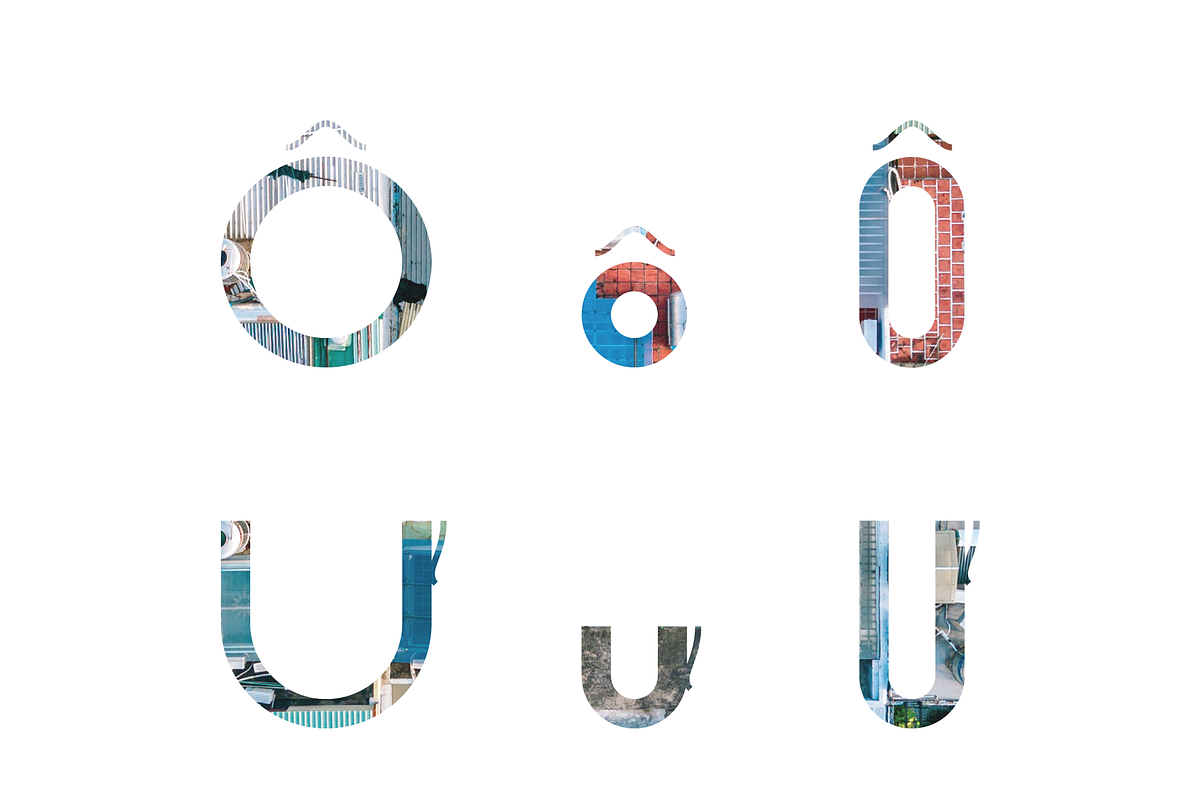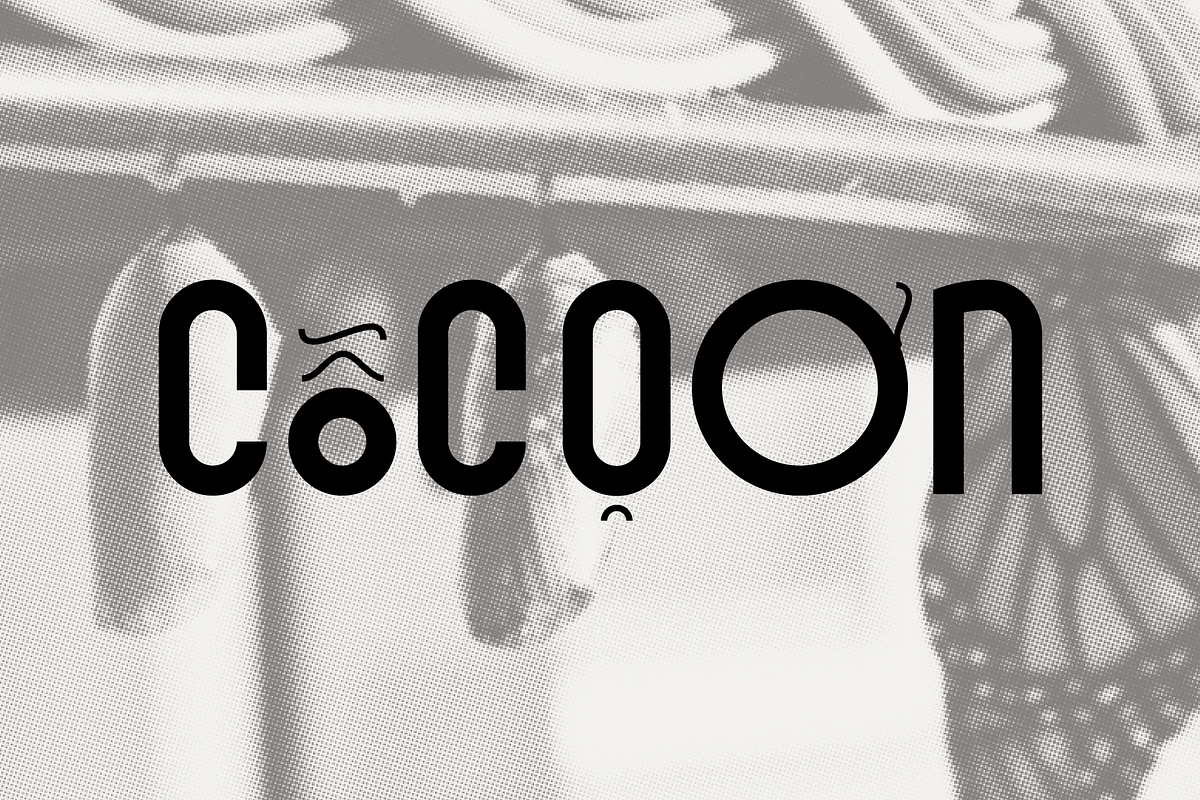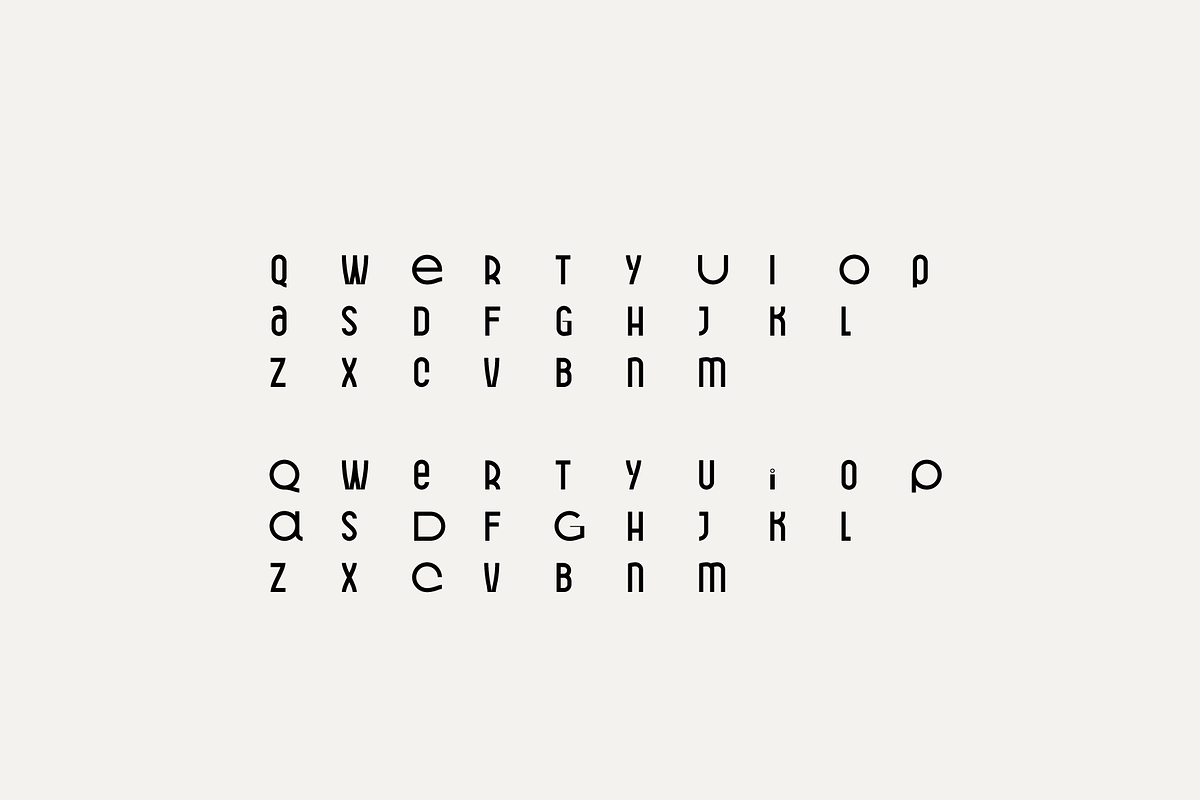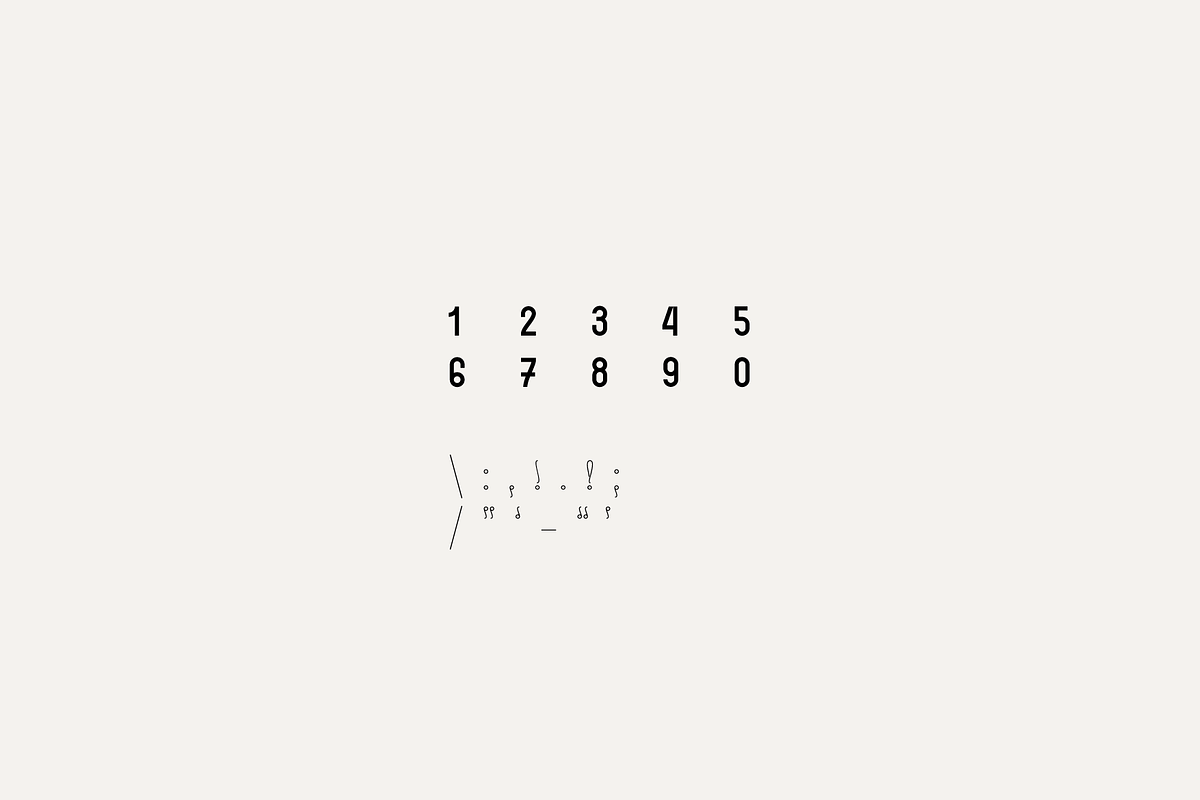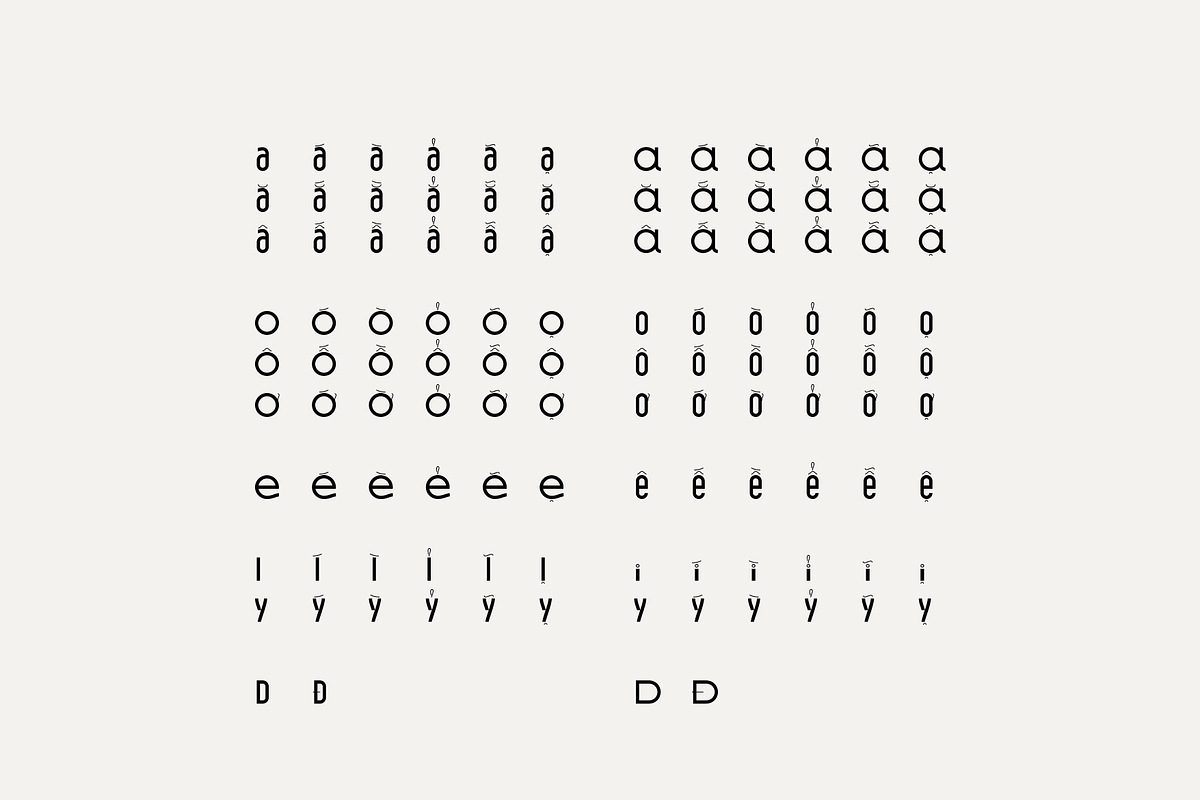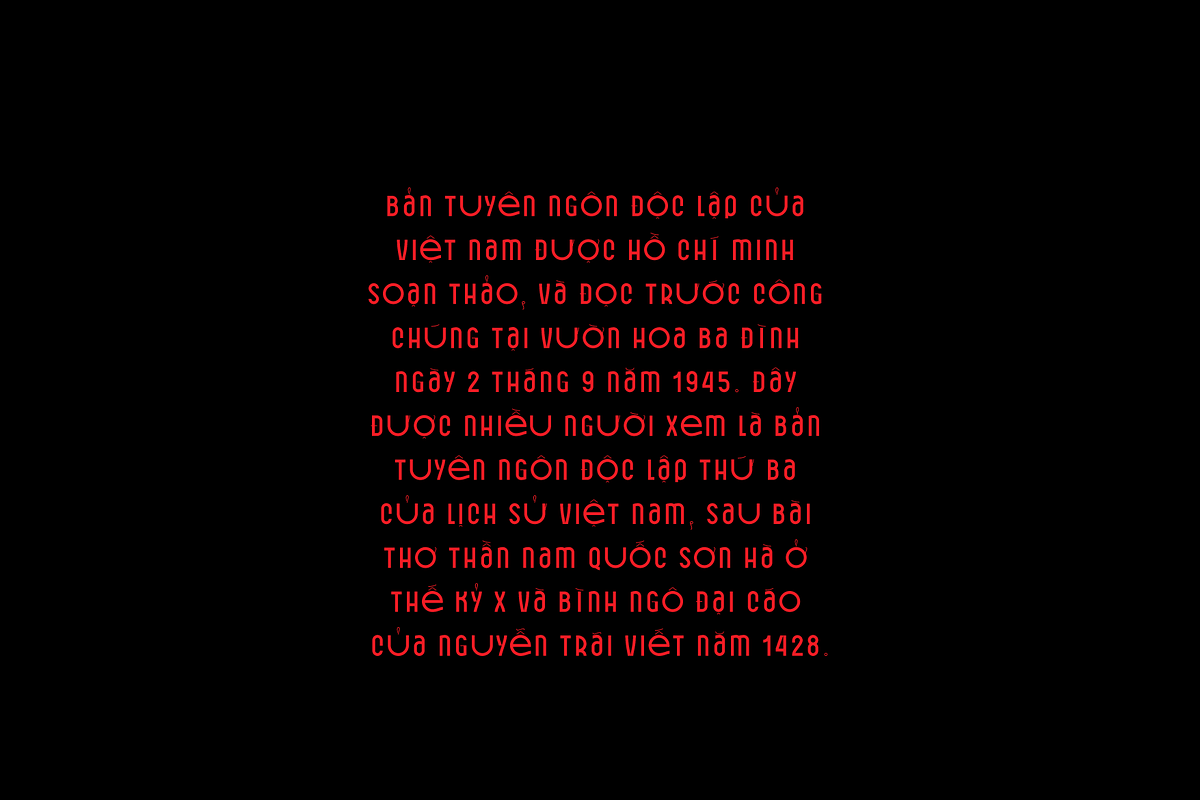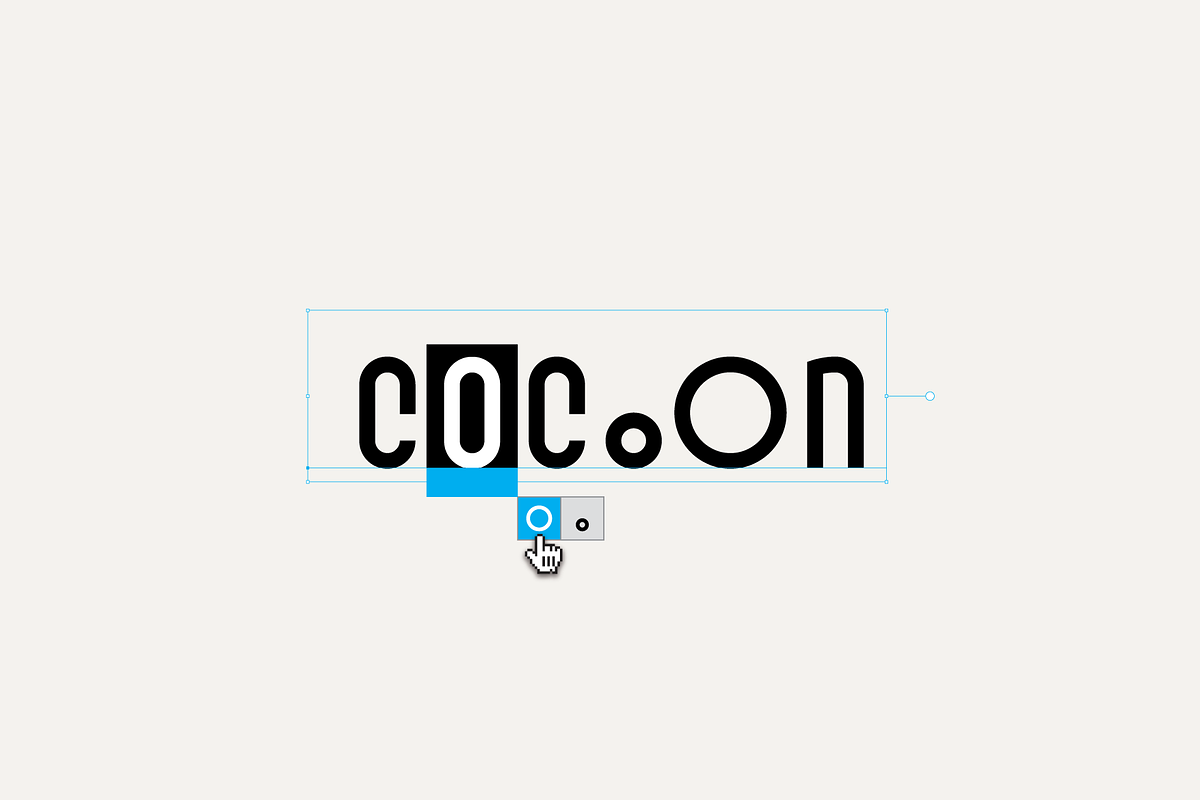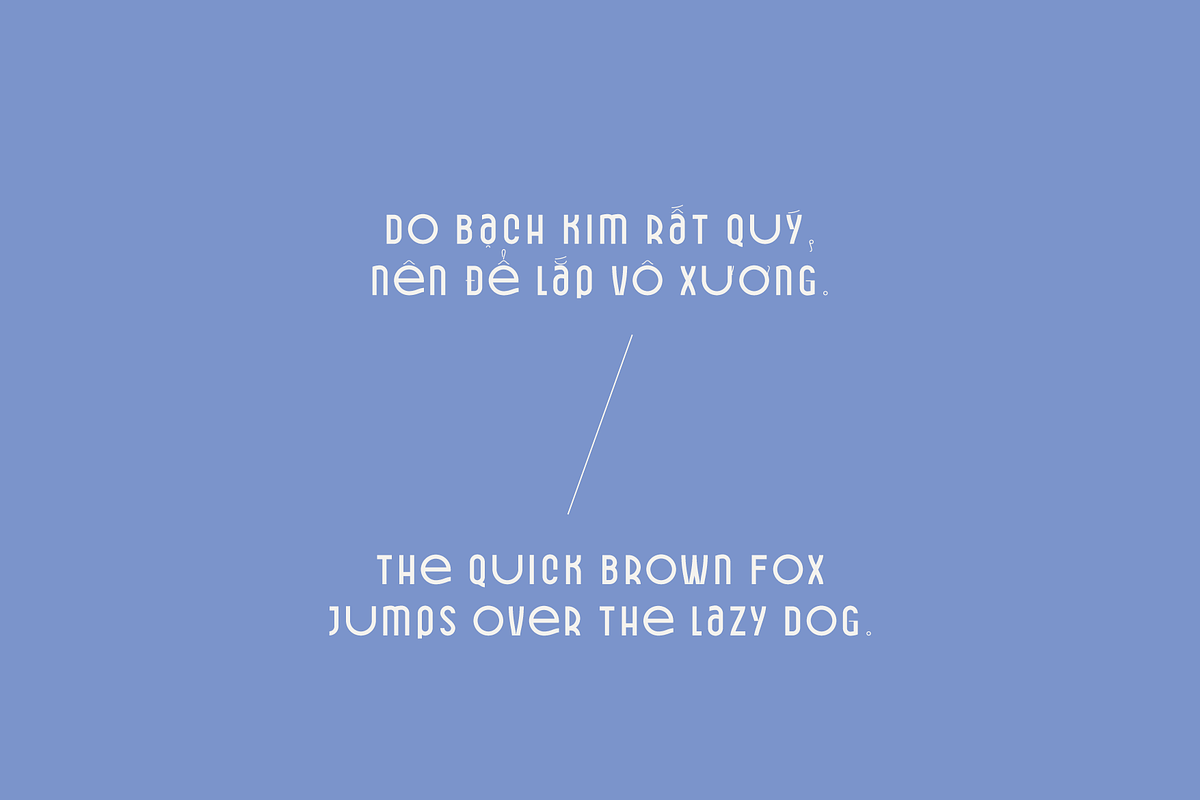
Cocoon / Ken Typeface
Cocoon / Kén Typeface (Vietnamese Font)
Is a geometric Display typeface. Inspired by cocoons, nature and the growth of all things...
Cocoon / Ken Typeface by Dat Do fits naturally into Branding, posters, packaging, typography.